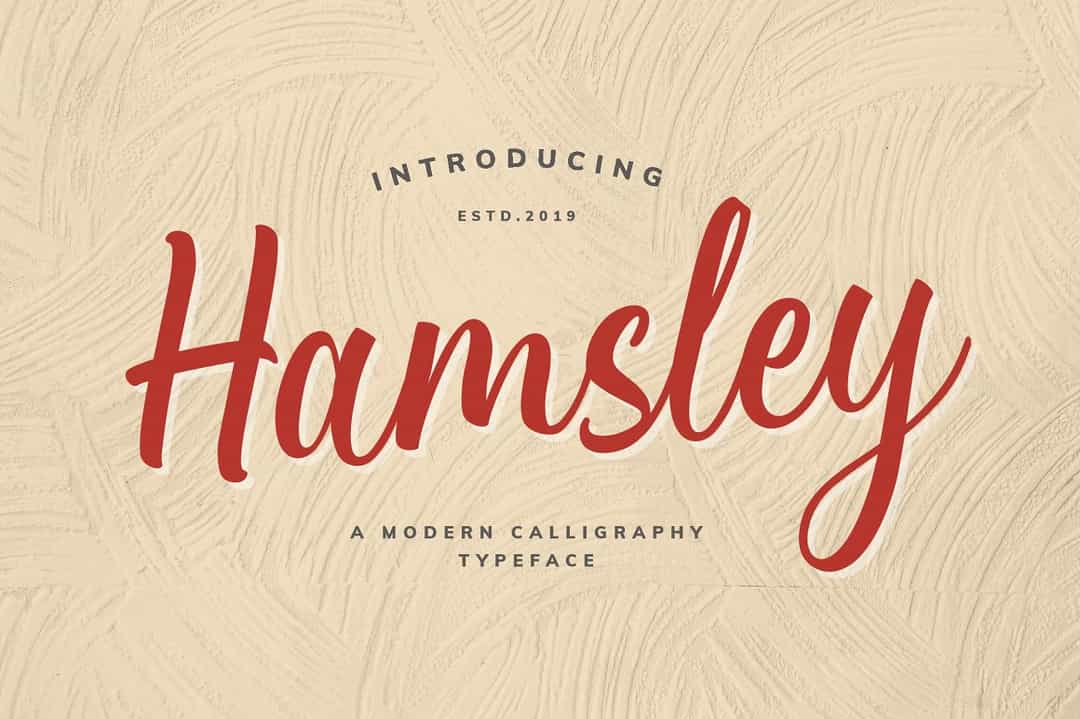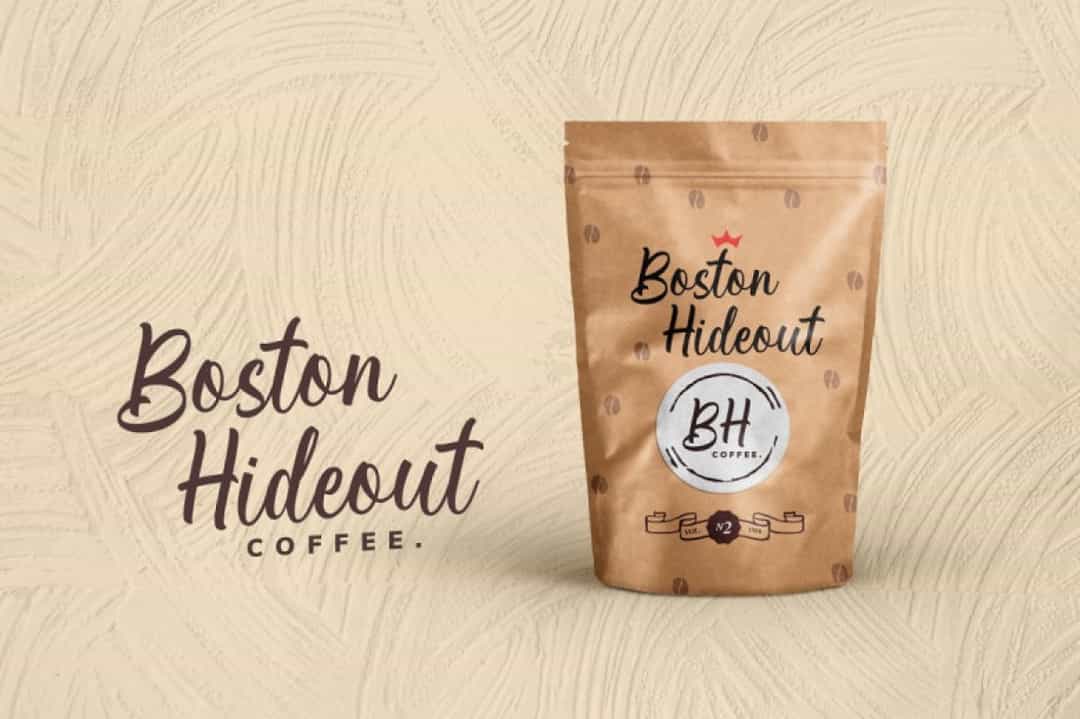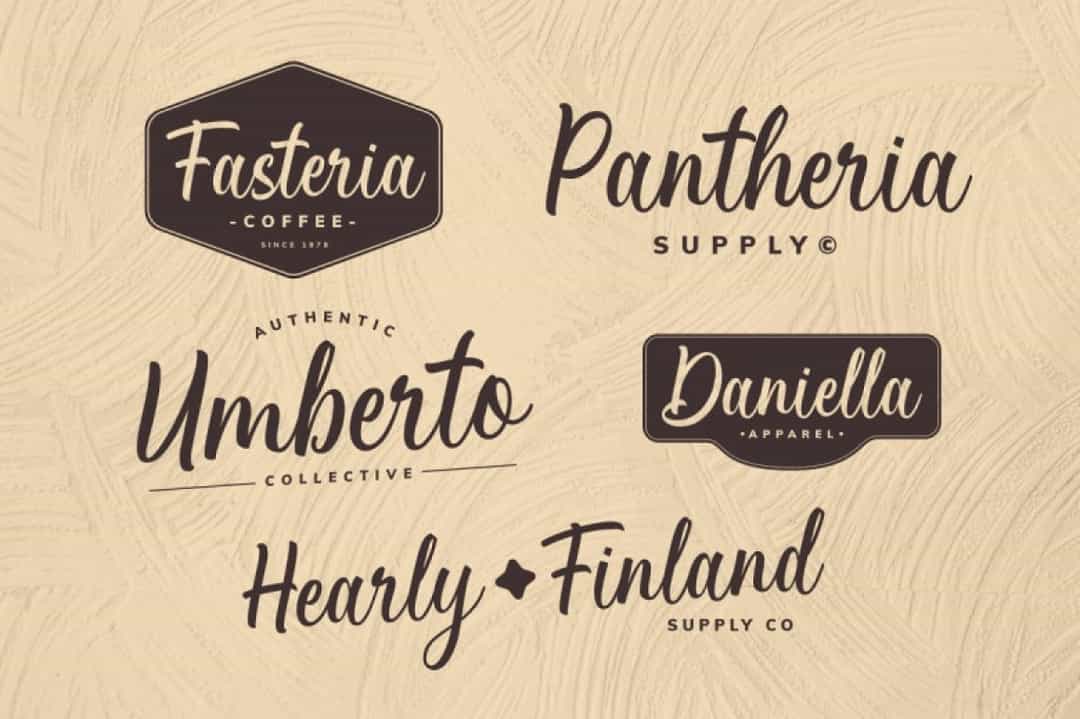
Hamsley transforms elegant design into a stunning handwritten font. Retaining its classic calligraphy motifs while remaining modern and contemporary, Hamsley can draw the eye with its versatility – be it titles and letterheads to stationery!